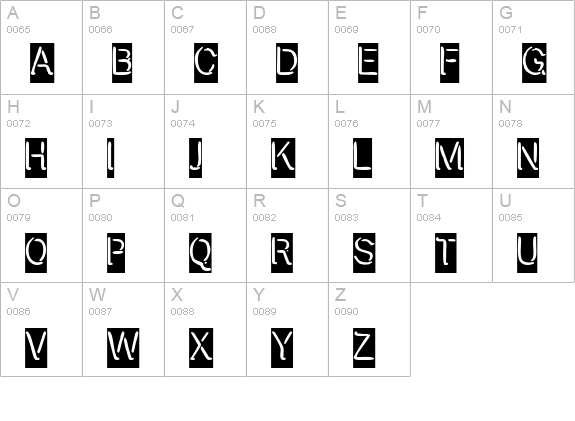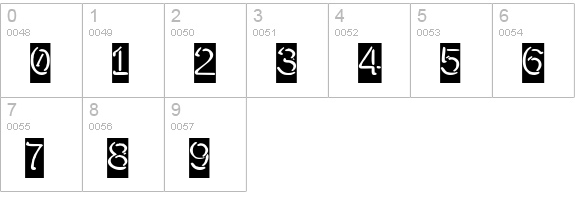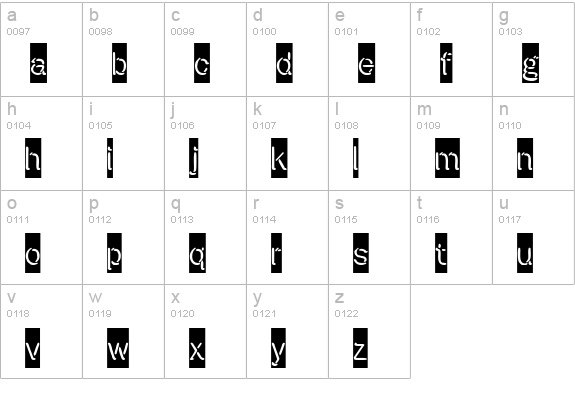
Presstape Lite Font Details
Presstape Lite is a modern and stylish font that exudes elegance and sophistication. With its clean lines and sleek appearance, this font is perfect for a wide range of design projects, from branding to editorial design. The versatility of Presstape Lite makes it a must-have font for any designer looking to add a touch of class to their work. One of the best things about Presstape Lite is that it is available for free download at FontsMarket.com. This means that you can easily access this beautiful font and use it in your projects without having to worry about any additional costs. Whether you are working on a personal project or a client's design, Presstape Lite is sure to elevate your work to the next level. So why wait? Download Presstape Lite today and start creating stunning designs with this amazing font. Let your creativity shine with the help of this elegant and free font, available at FontsMarket.com.